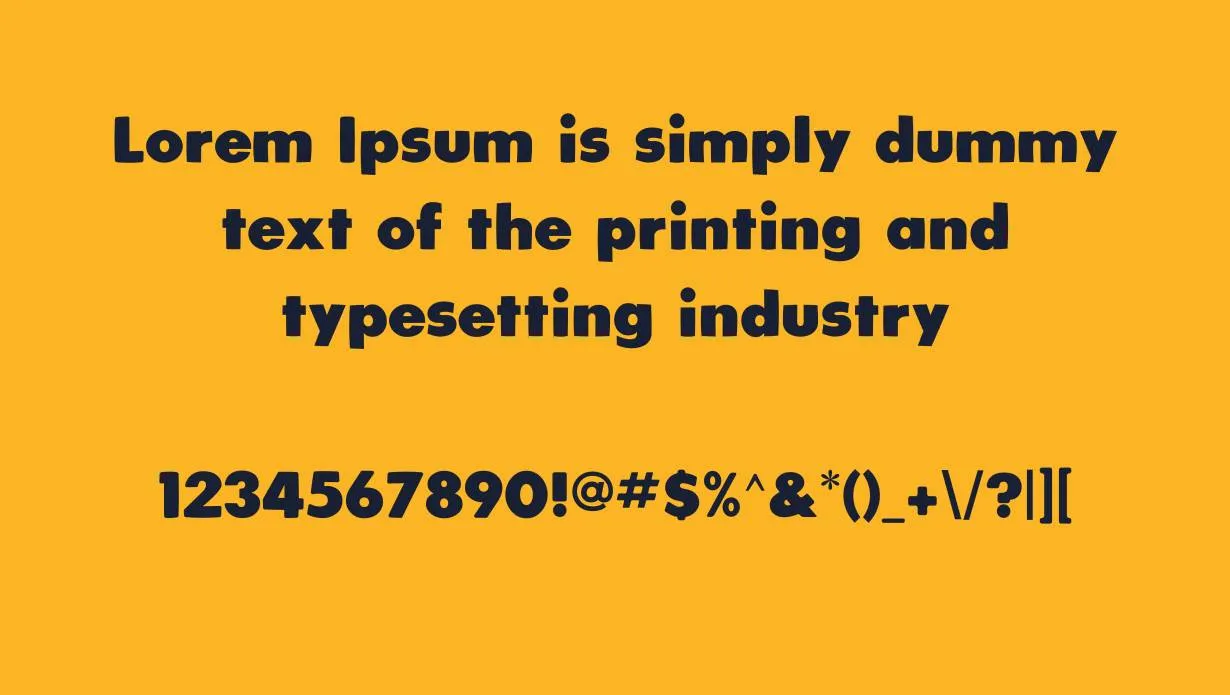
Plumpfull is a very attractive font with a very bold and strong look with heavy strokes. The amazing font is designed by Steven Whitfield and manufactured by Ogle Studios. It is best for making attractive headings, logos, titles, banners, posters, and much more because it can be read easily even from a distance.
It has 516 characters, 486 glyphs, and 1000 units per Em. The weight of this font is bold and its width is medium(normal).
It has three different styles with a full character set which makes it perfect for various projects such as Plumpfull Regular, Plumpfull Bold, and Plumfull Semi-Bold. It supports file formats True Type Font and Open Type Font.